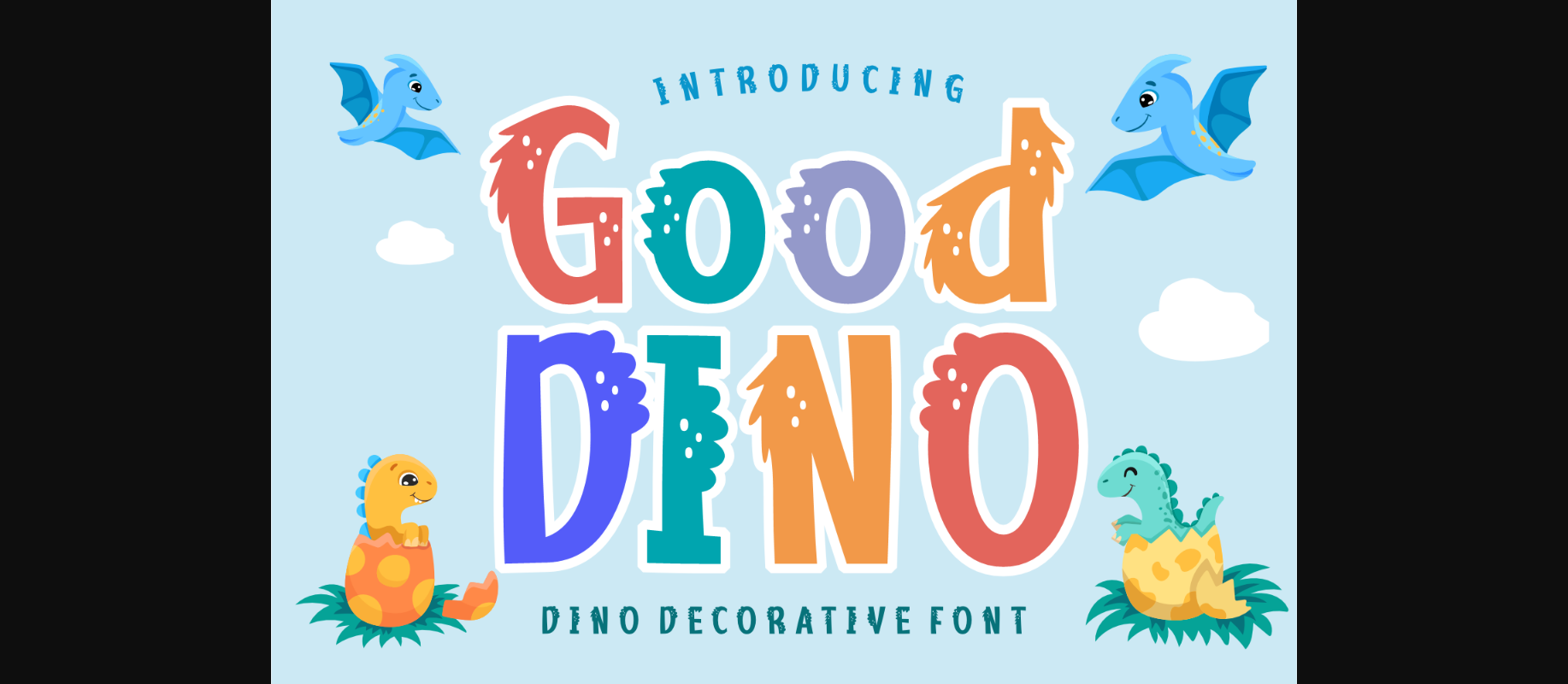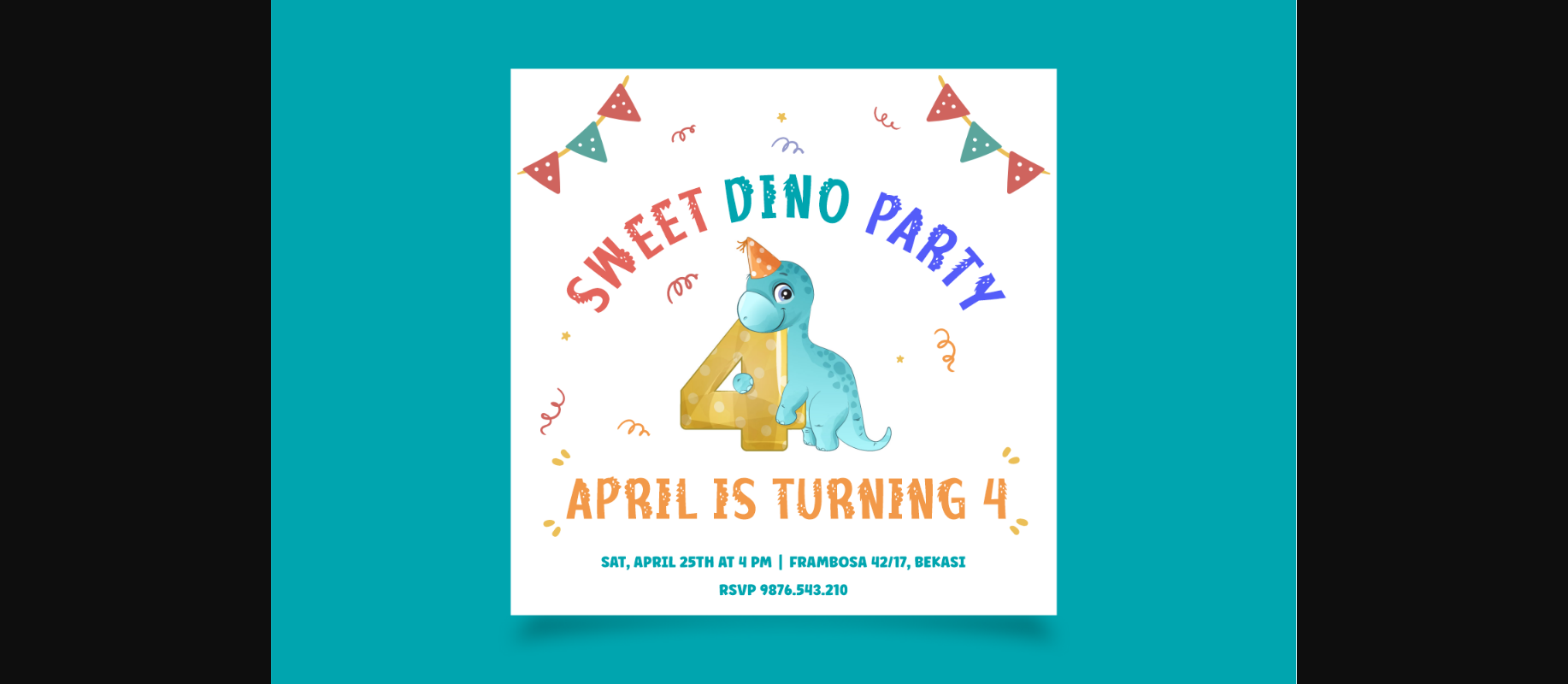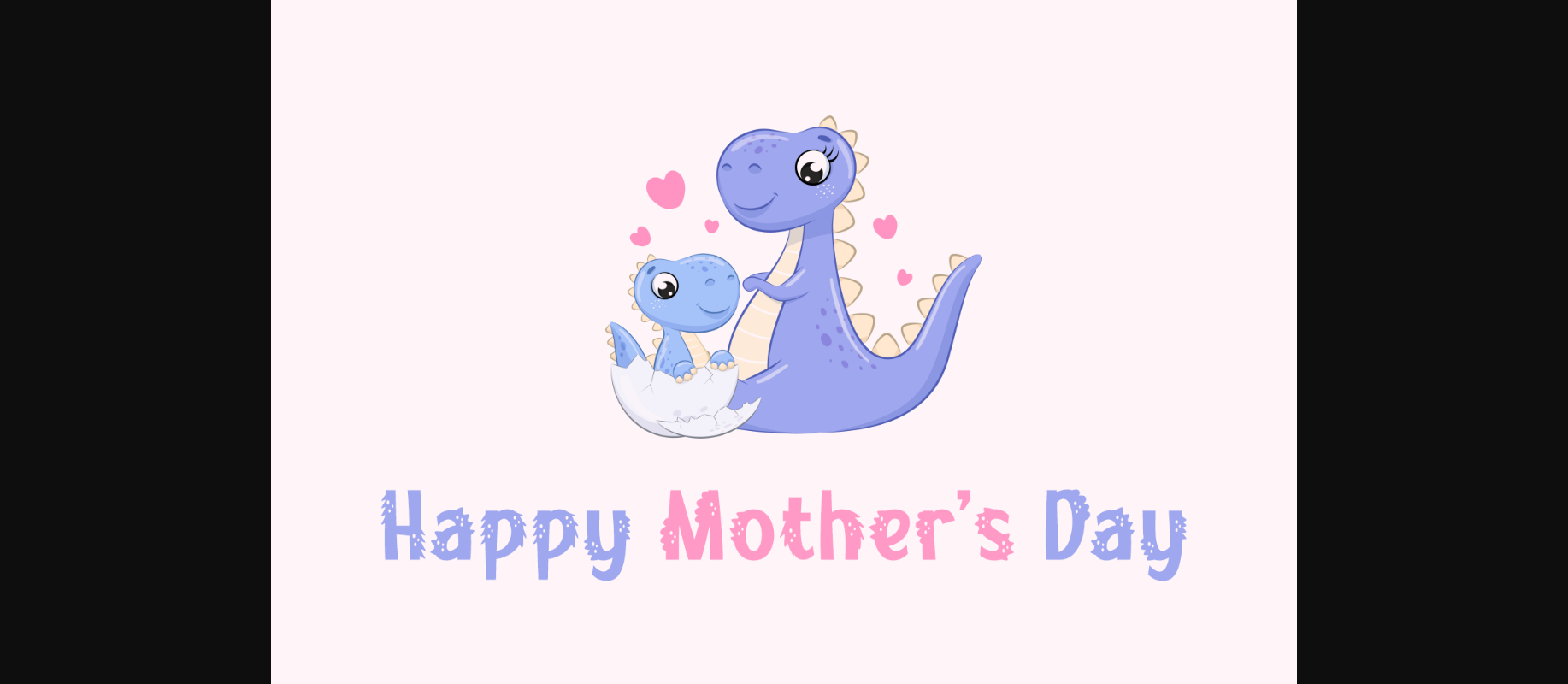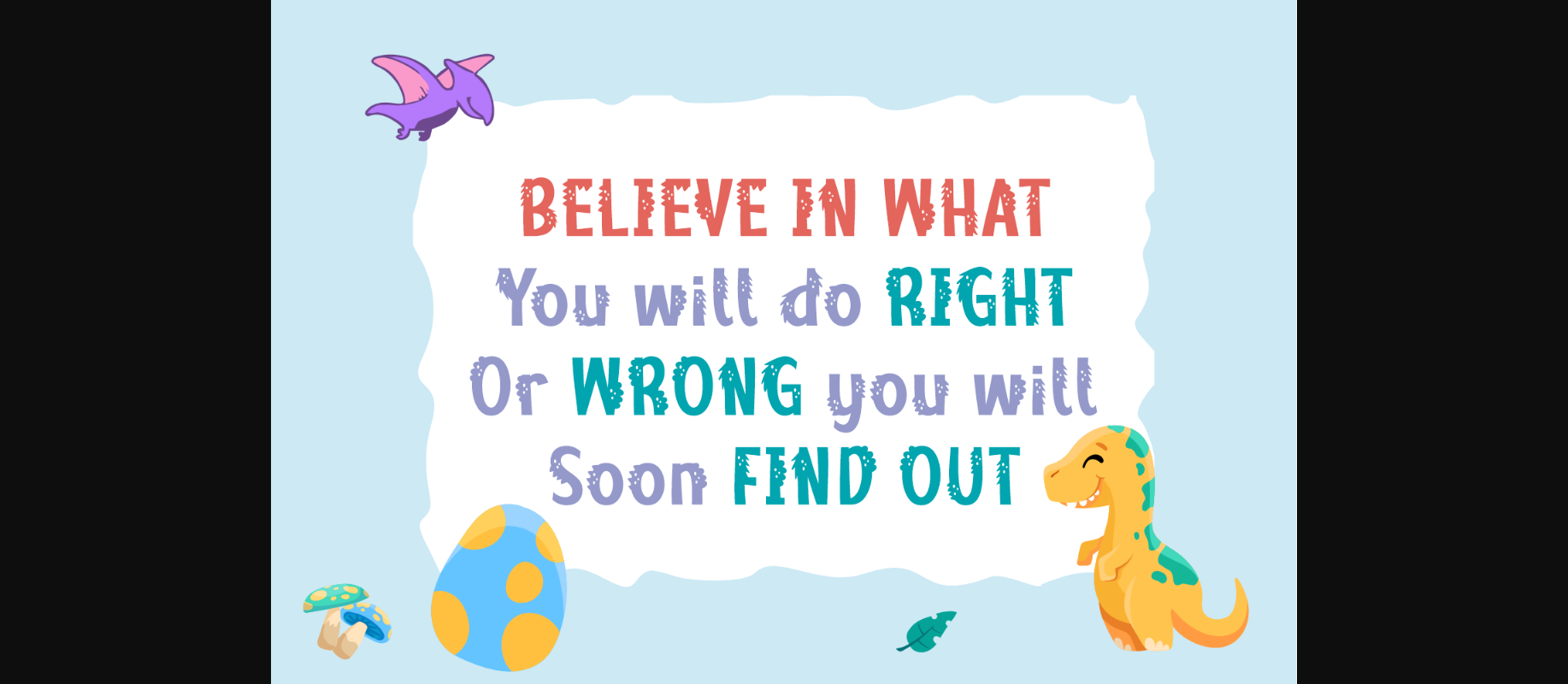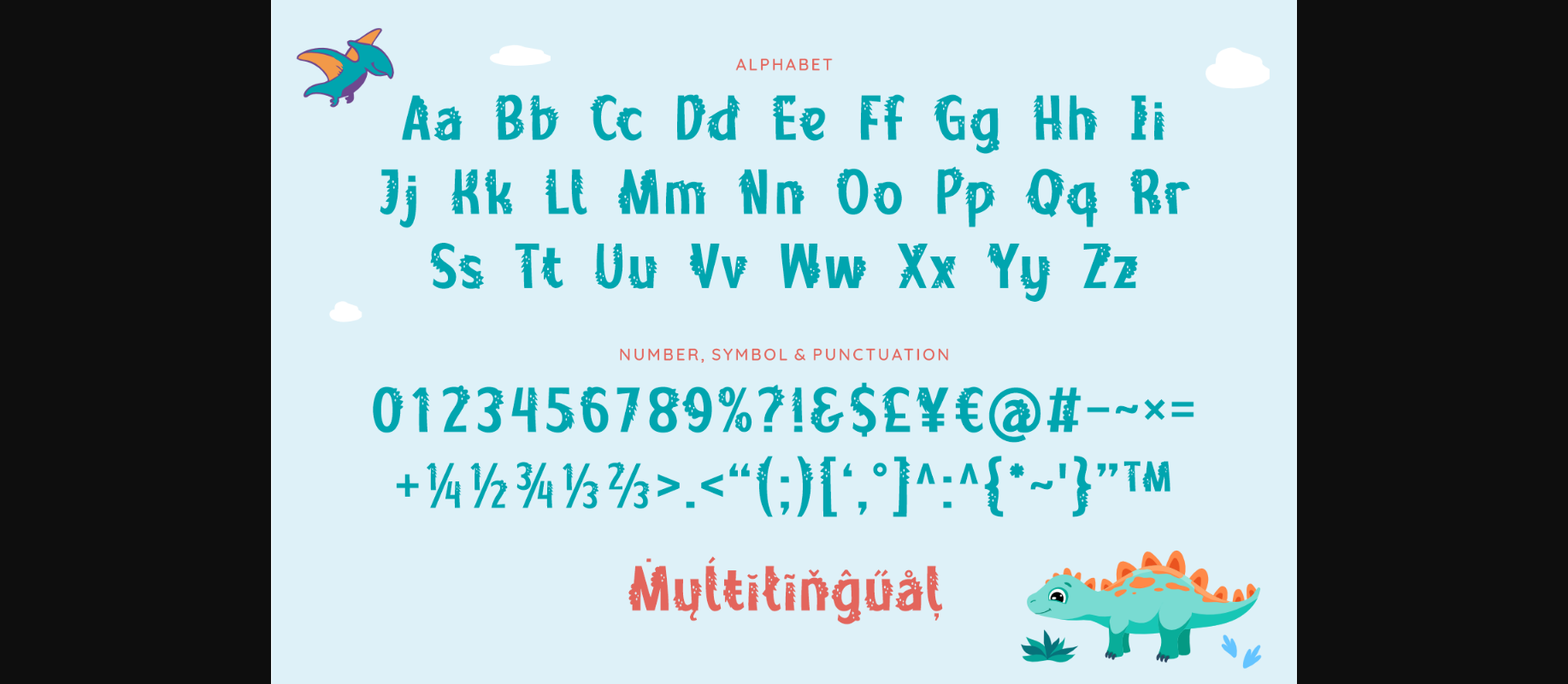
Good Dino Font
About Good Dino Font
Good Dino is a delightful decorative font that is now available to add flair to your projects. Its playful accents make it ideal for creating eye-catching invitations, posters, and social media posts. Make your designs stand out with this font’s unique and sophisticated touch.